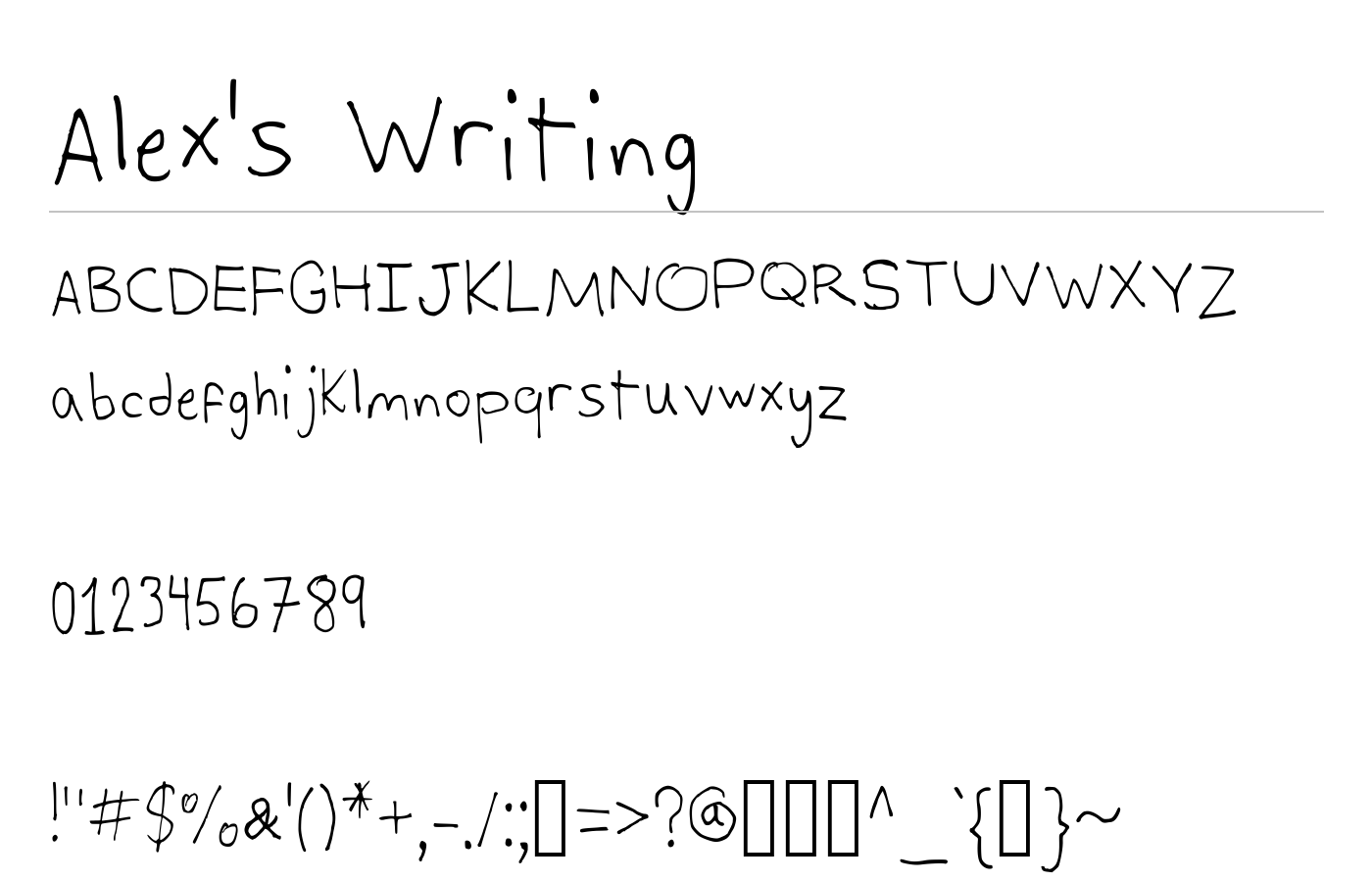
Alex's Writing Font is a casual, handwritten sans serif typeface that captures an informal and personal feel. With its narrow, slightly uneven letterforms and delicate strokes, it brings a playful yet approachable character, making it ideal for creative projects, children’s materials, or any design seeking a friendly and human touch. This font works well in headlines, invitations, and branding that benefit from a relaxed, authentic handwriting style.
Alex's Writing Font